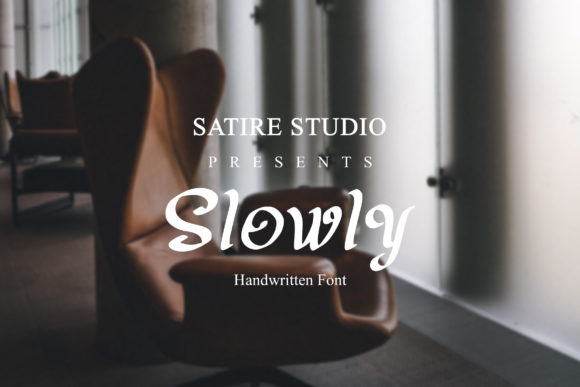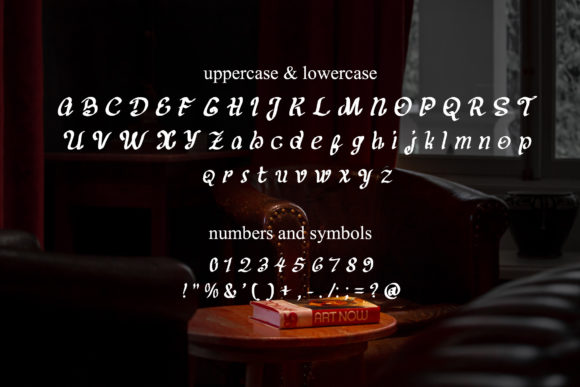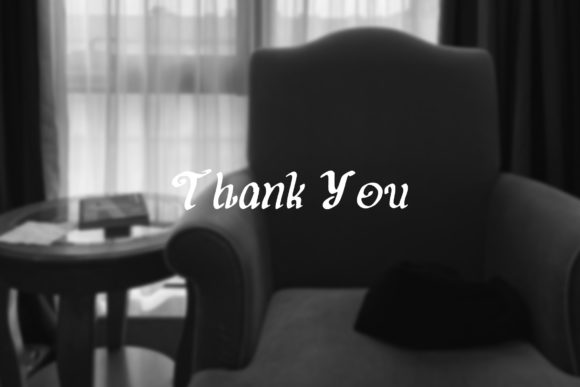
Slowly Font
About Slowly Font
Slowly is a romantic handwritten font with lovely swirls and a natural style. It would be perfect for creative projects that need an authentic appearance with a classy twist!